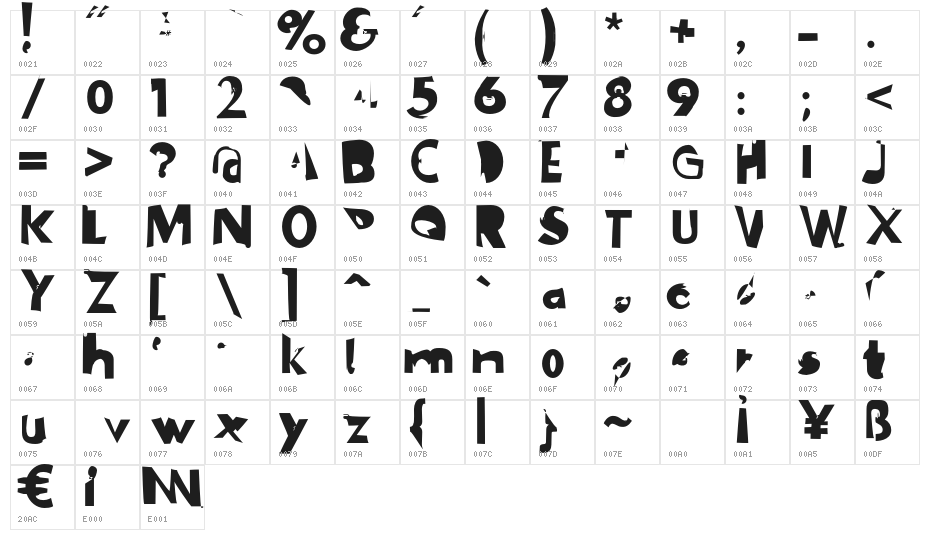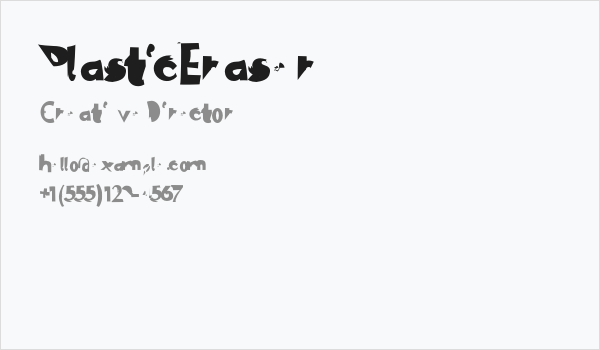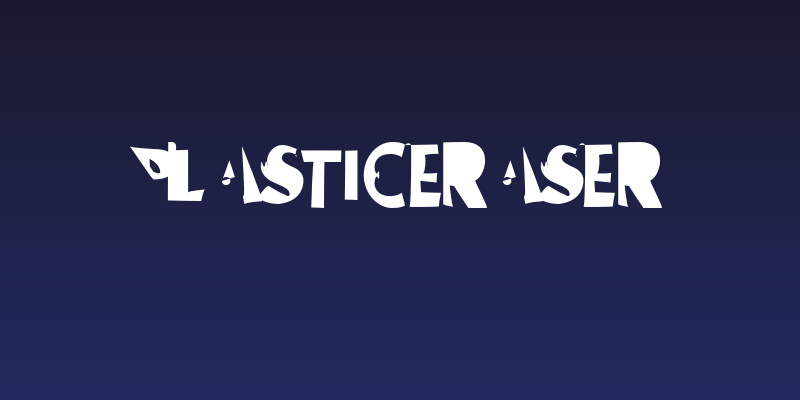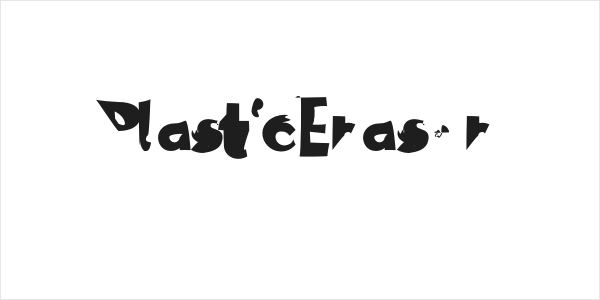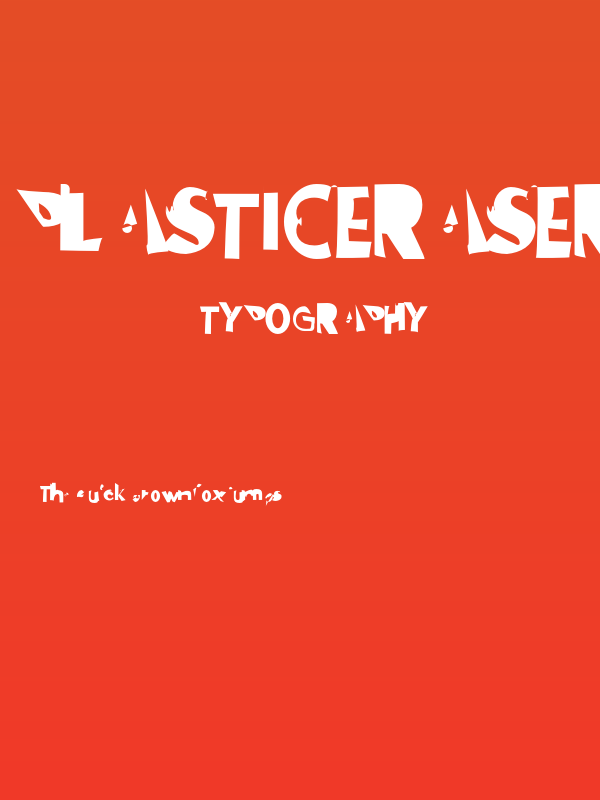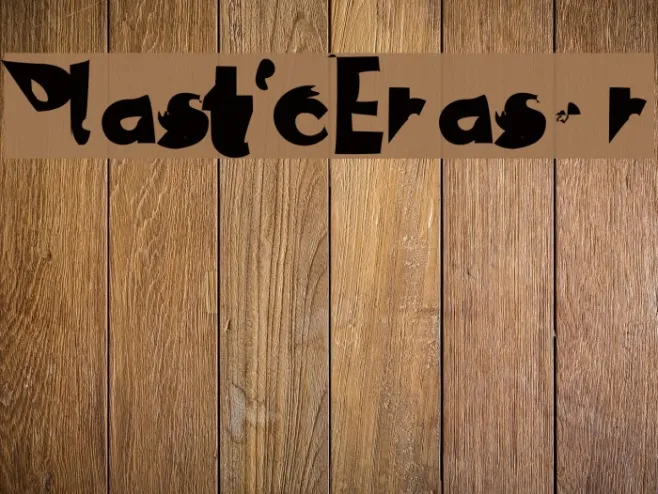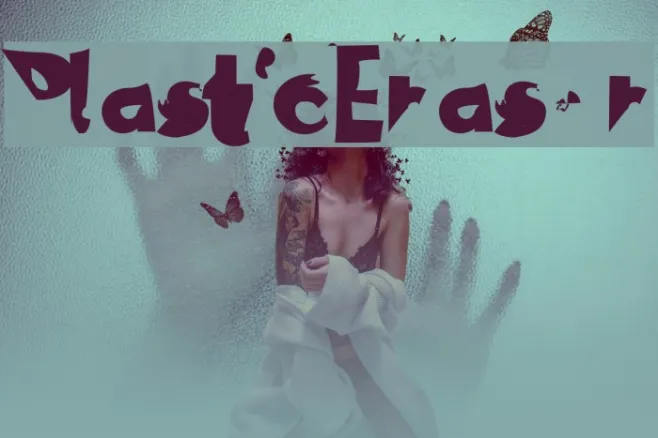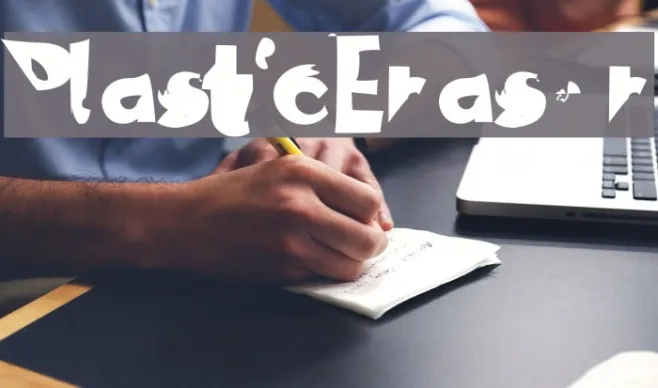
PlasticEraser Font
PlasticEraser Description
This font exhibits a bold and dynamic style with a playful and chaotic appearance. The characters are heavily stylized, featuring irregular shapes and varying stroke thicknesses that create a sense of movement and energy. The uppercase letters are particularly striking, with exaggerated forms and unexpected angles. The lowercase letters maintain this whimsical style, though they are slightly more subdued. Numbers and special characters follow the same design principles, ensuring consistency throughout the font. The overall impression is one of creativity and boldness, making it suitable for eye-catching designs.
| Proposed Projects | Ideal for posters, album covers, or any project requiring a bold, artistic statement. |